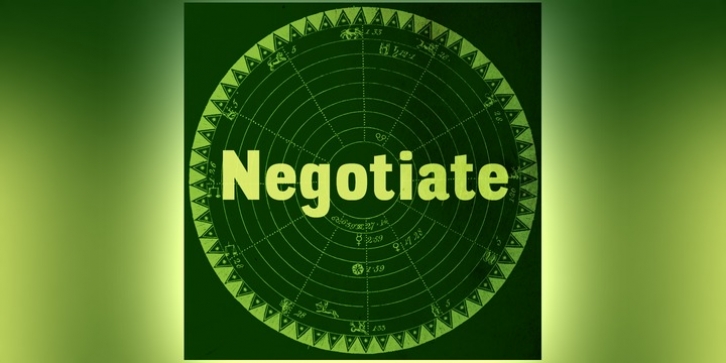
Negotiate downloadDesigner: Ray Larabie
Publisher: Typodermic
Negotiate is a sans-serif family in five weights plus italics.
You can access old-style numerals in OpenType savvy applications.